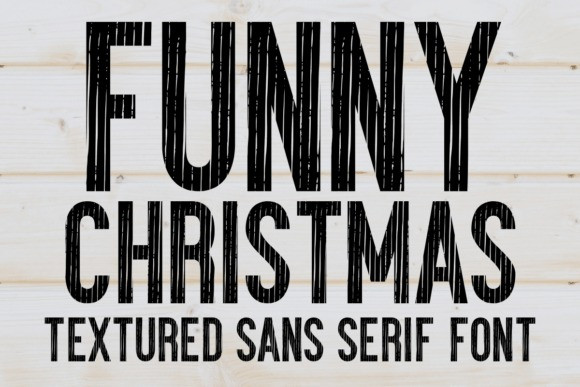
Funny Christmas Display Font
Funny Christmas Display Font a tall and playful sans-serif typeface.
This Funny Christmas typeface features a unique “sketchy” or hatched texture within its letterforms, giving it a rustic, handcrafted feel that is perfect for winter festivities.
Use the Funny Christmas font to create standout Christmas cards, seasonal signage, and DIY gift wrap. The Funny Christmas typeface ensures your holiday marketing feels personal and creative, offering a tall, condensed silhouette that fits perfectly into tight layouts while maintaining a fun, festive energy.